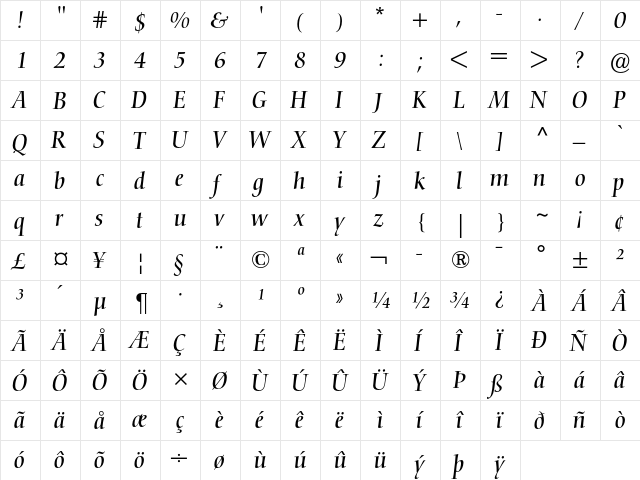
Nofret Italic
Design Context for Nofret Typeface
Nofret is a composed and adaptable typeface that performs quietly and consistently across a wide range of design contexts. The slanted form adds forward momentum and visual energy.
Pro Tip: Try Nofret for annotation and caption copy alongside an upright companion — the contrast in angle creates a dynamic but ordered typographic system.